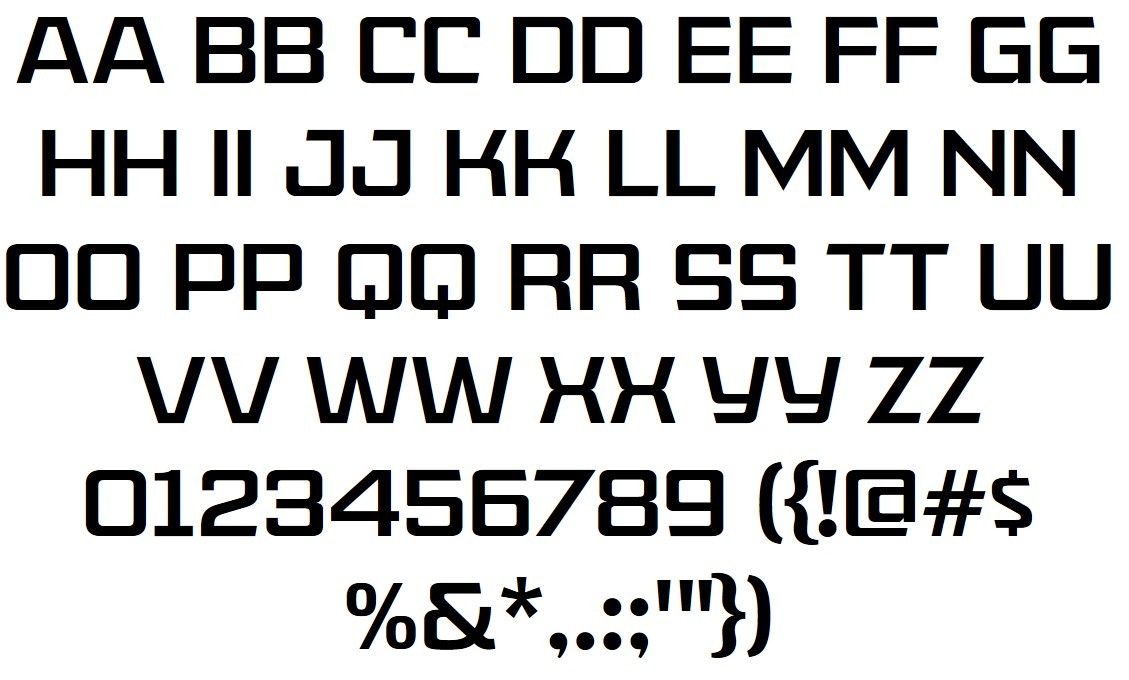
American Captain Patrius Font
Patrius Font, an American Captain font, is widely regarded as a top-tier font choice. It is highly esteemed as a premier comic font and is also referred to as the Eternal Font.
It has a whole eight amount of family together with 192 large forms of noteworthy font. And masses of peoples everywhere inside the globe have seemed.
Style Of American Captain Patrius Font Free